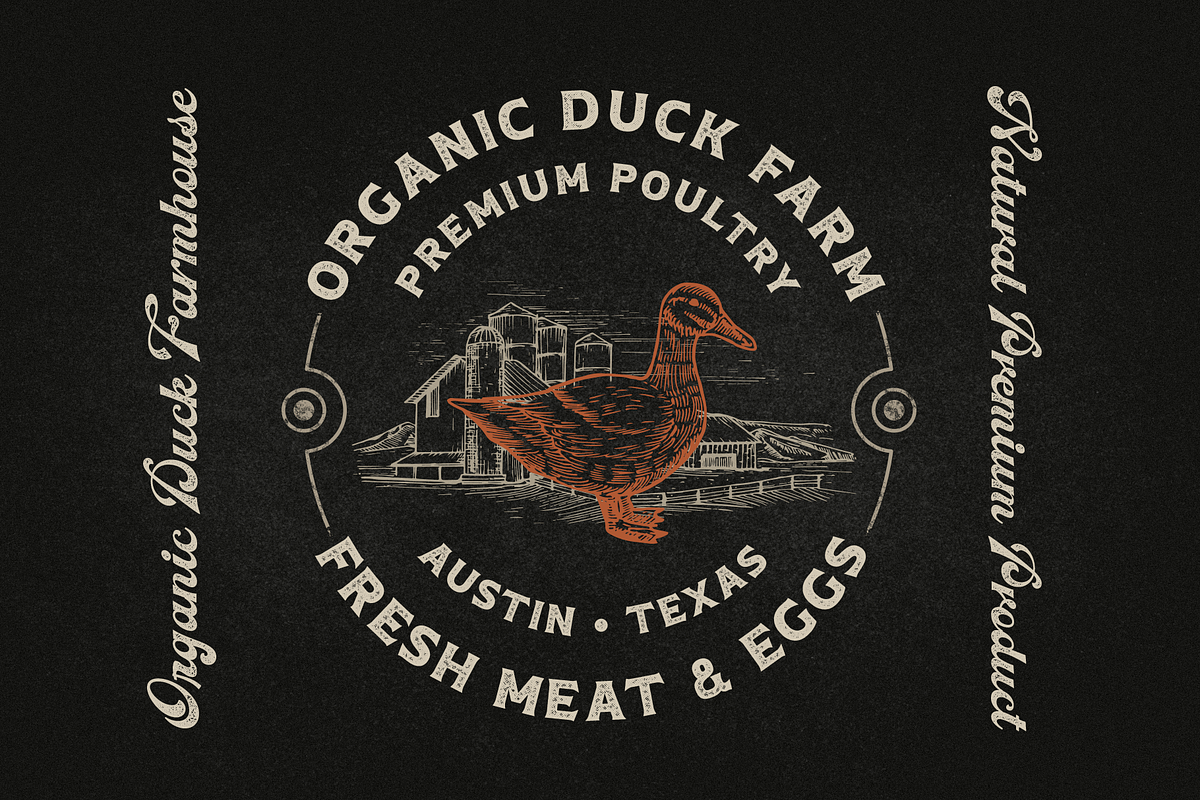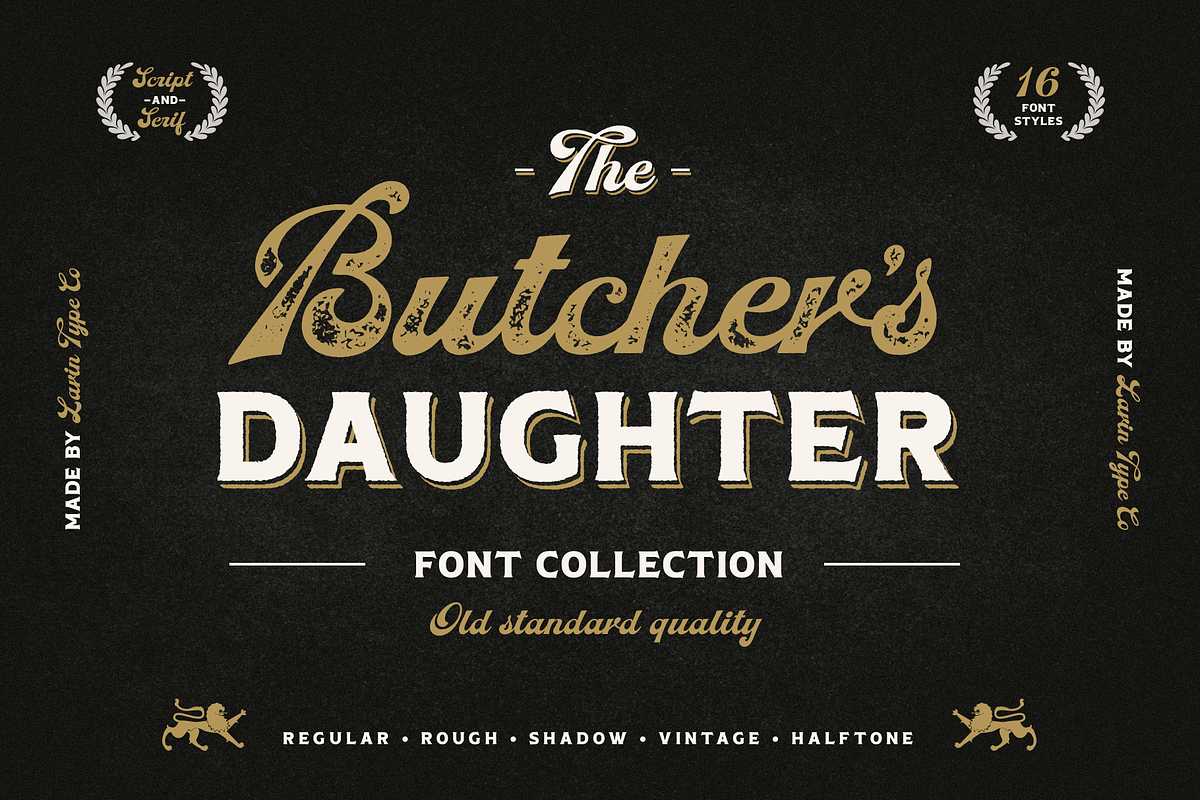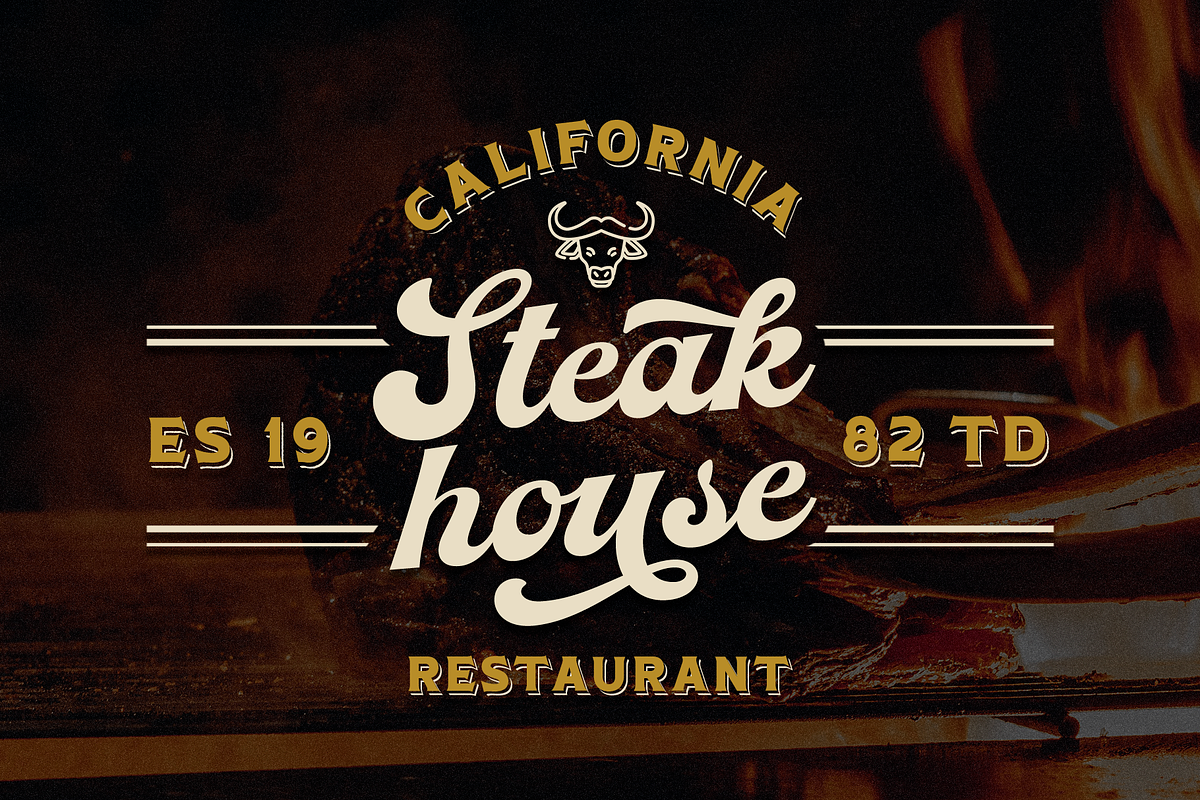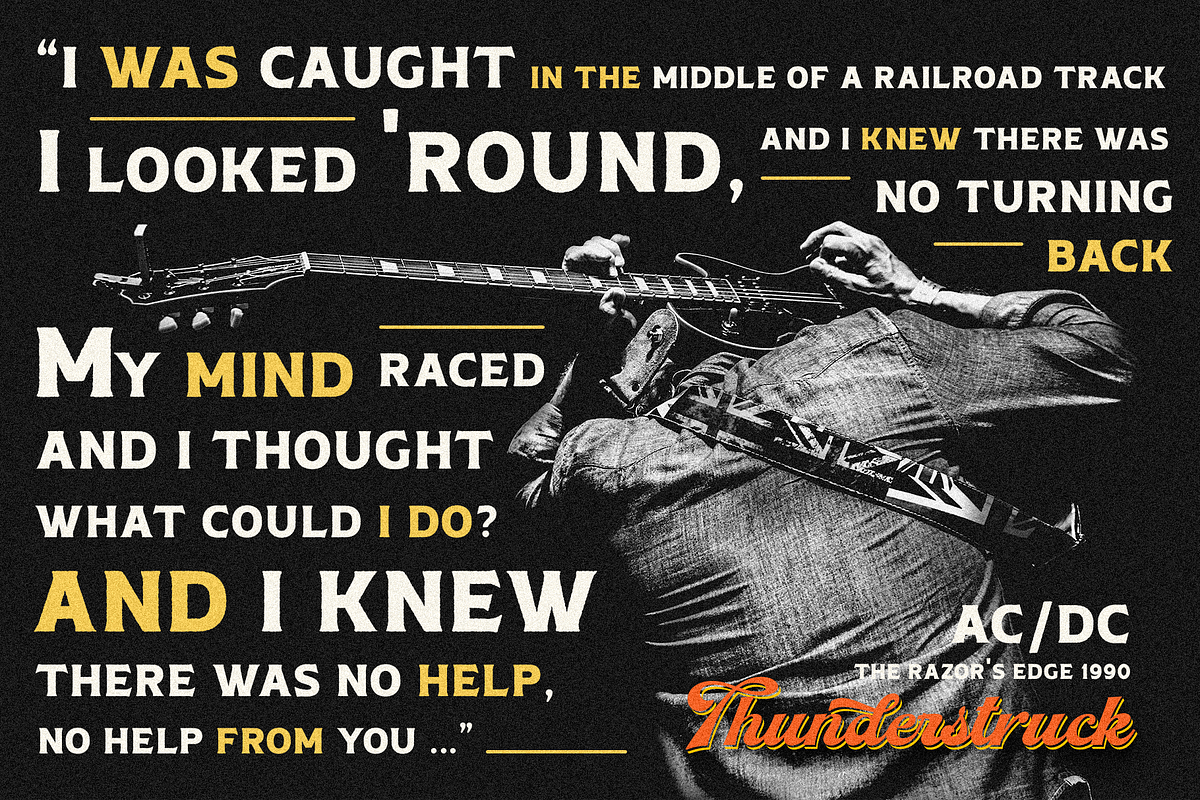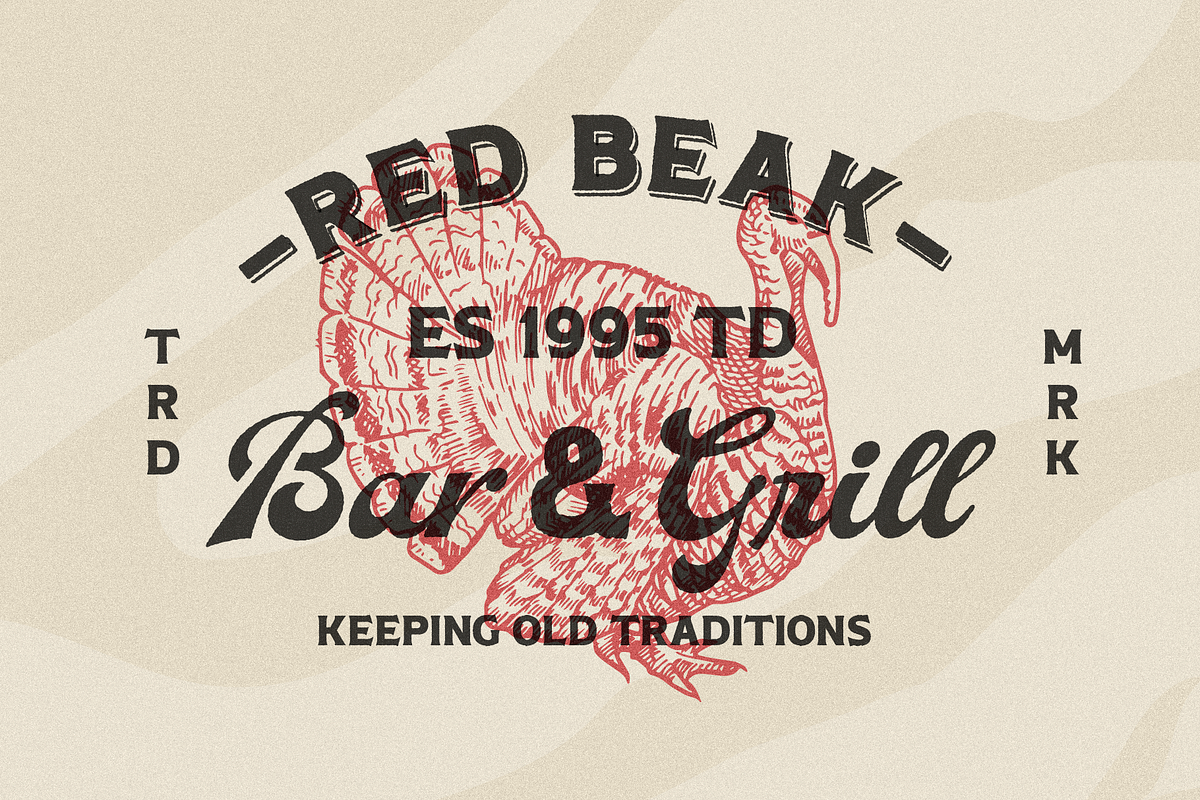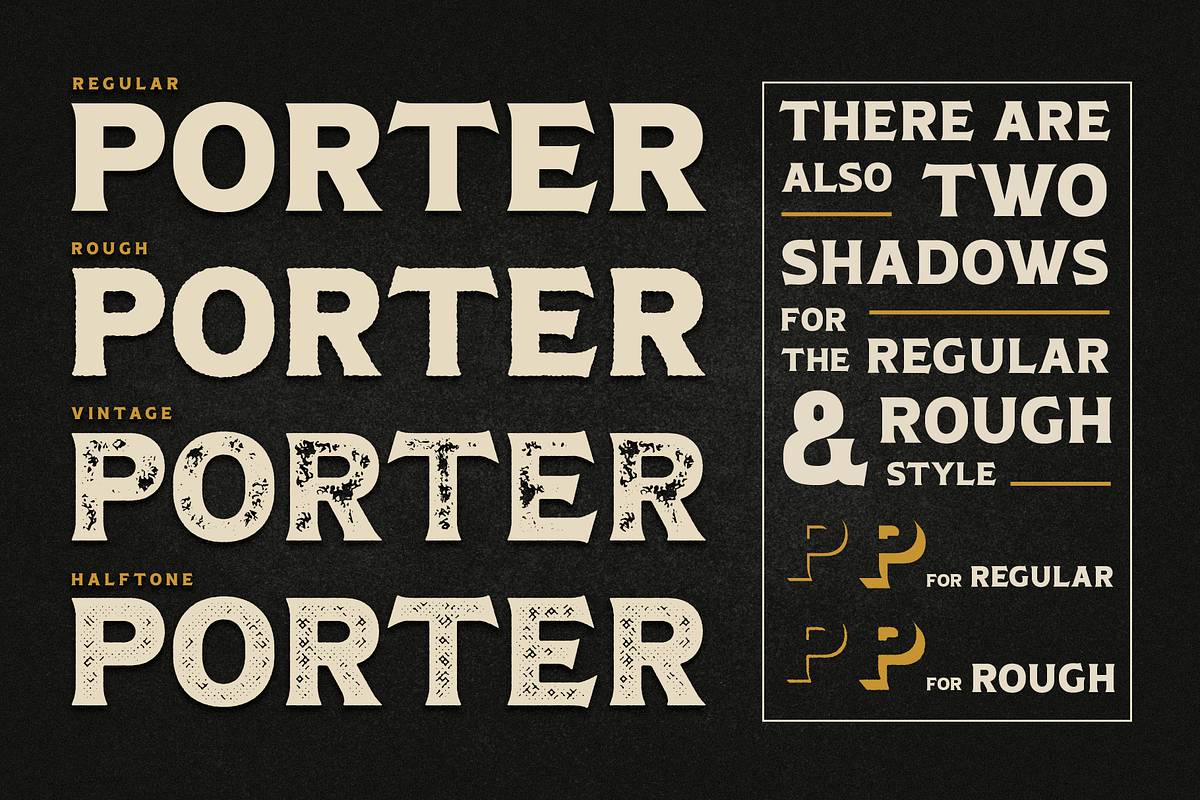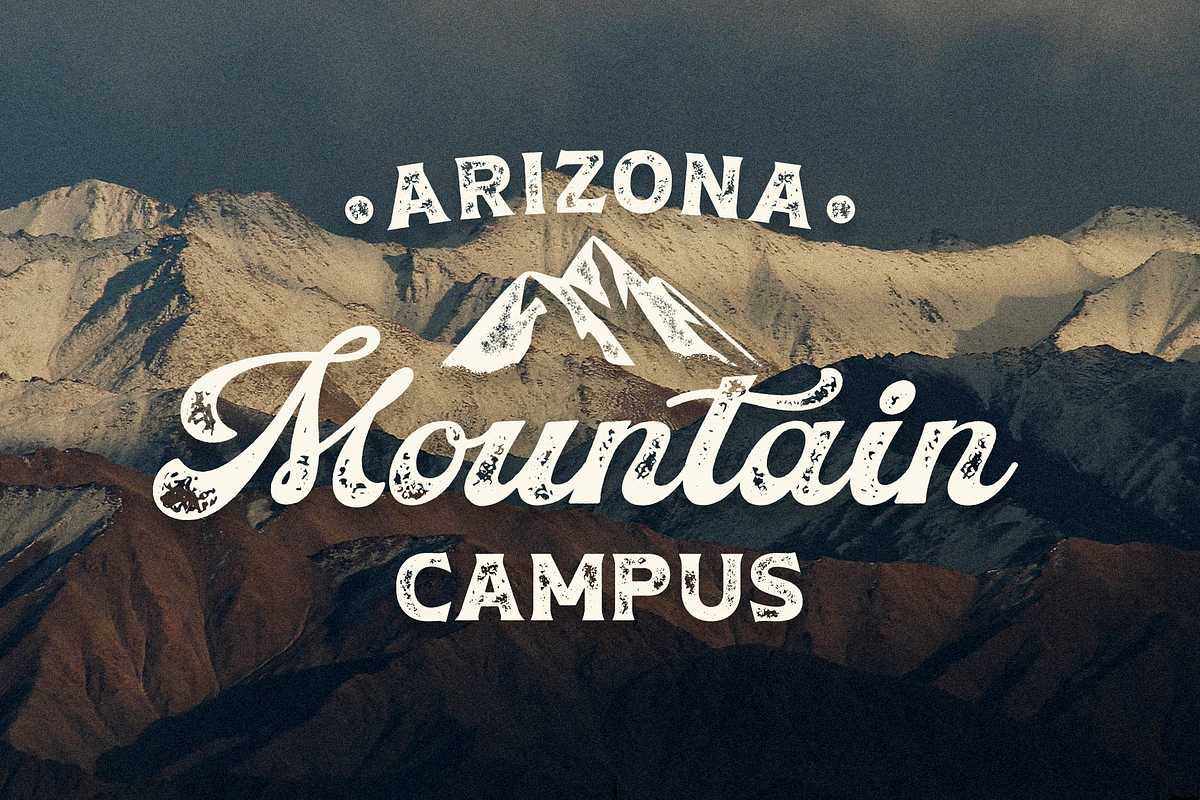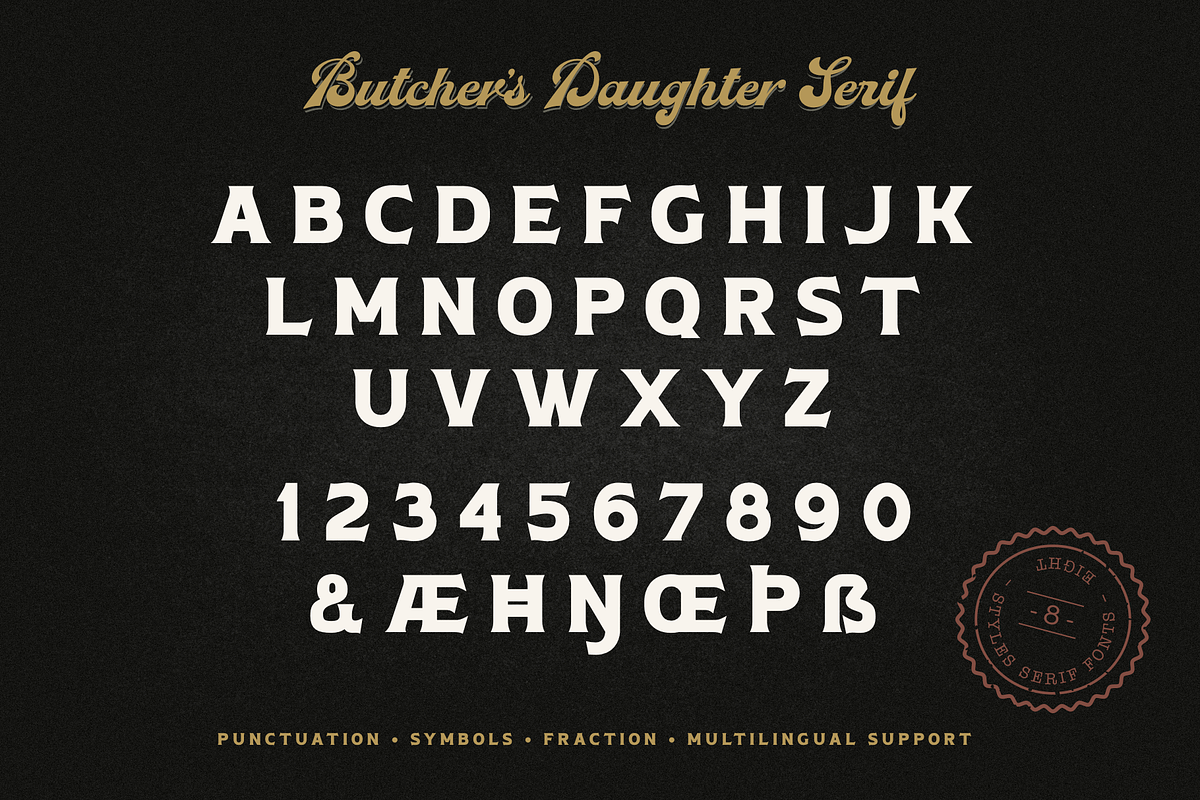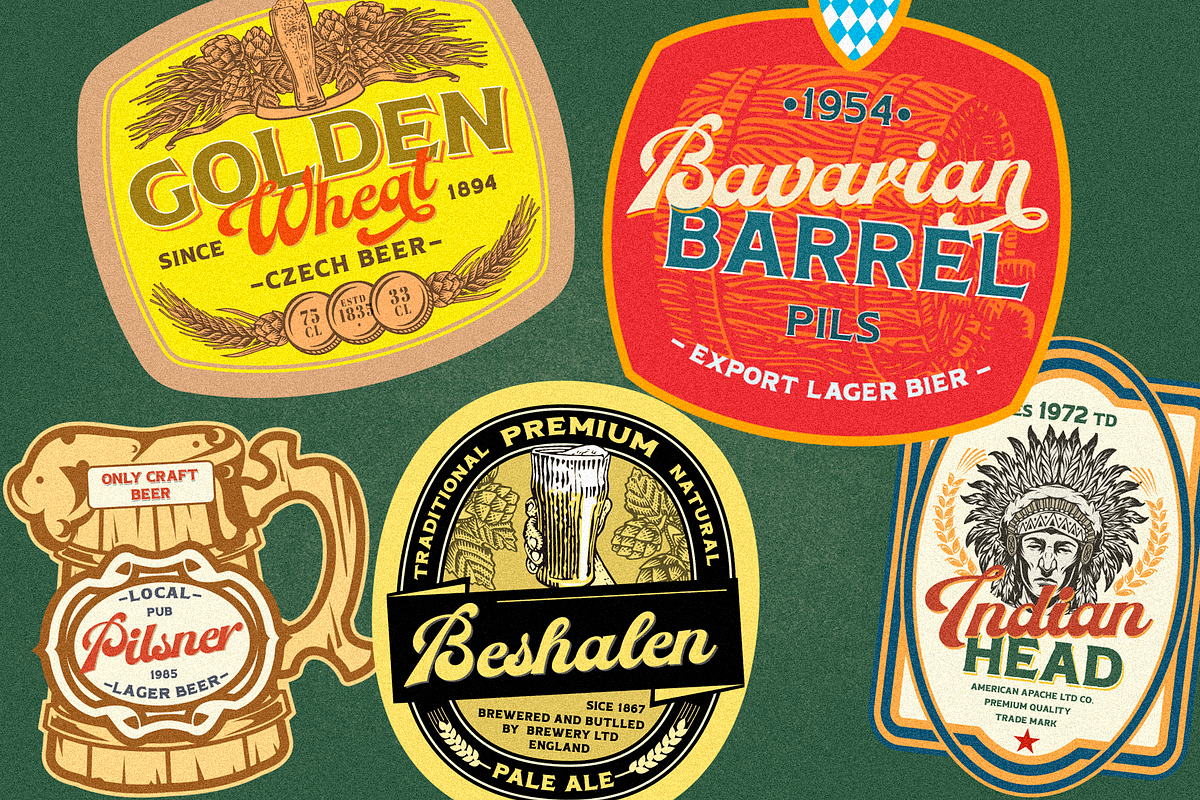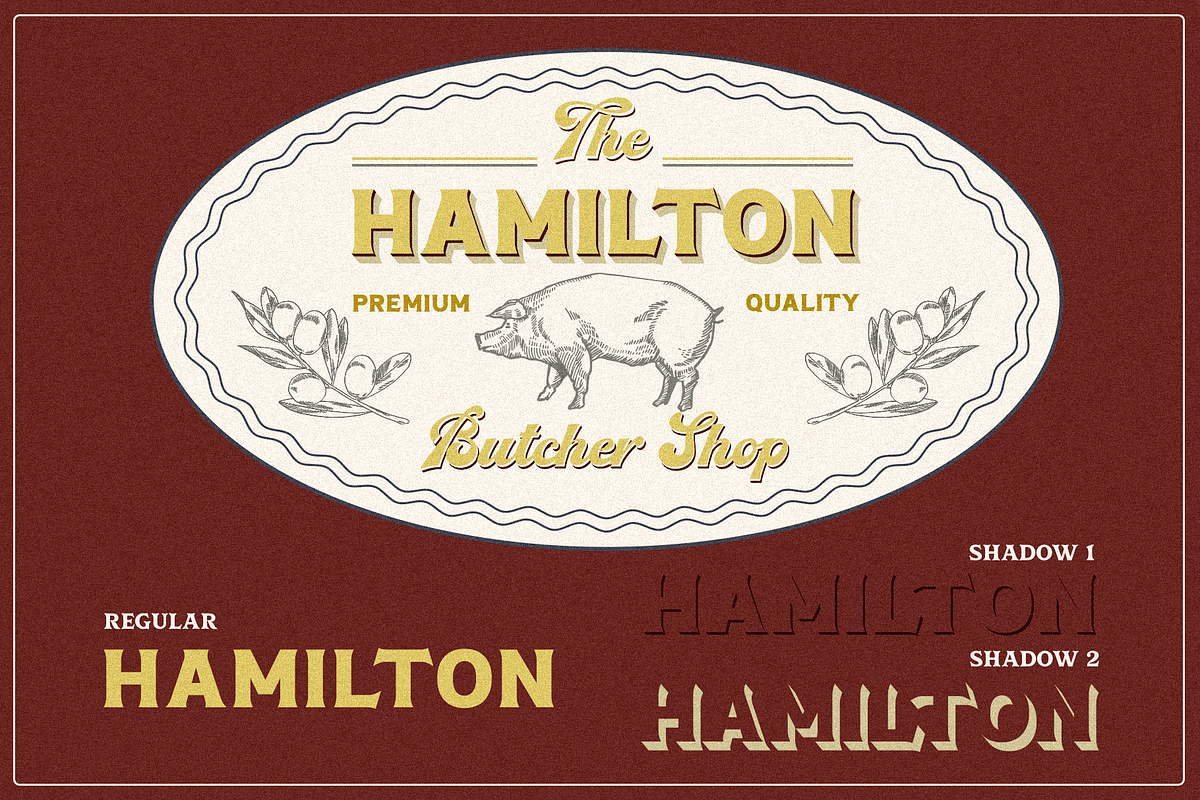
Butcher's Daughter
Butcher's Daughter This is a vintage font collection inspired by old pubs, bars and their style. This collection includes 16 font styles - Serif and Script has a regular, rough, vintage, halftone style, as well as a regular and rough style for Serif and Script there are shadows in two versions - short and long. The script font includes alternatives for Uppercase and Lowercase, as well as swashes.
Following international symbols support: ÀÁÂÃÄÅĄÇĆÈÉÊËĘÌÍÎÏÐÑŃŁÒÓÔÕÖØÙÚÛÜŚŠŸÝŹŻŽßàáâãäåçèéêëìíîïðñòóôõöøùúûüýÿąćęłńśšźżž
Full Capital alphabet A-Z for Serif
Full alphabet Uppercase and Lowercase A-z for Script
Numbers, fractions for Serif and Script
Punctuation and symbols for Serif and Script
Alternates for Uppercase and Lowercase for Script
Swashes for Script